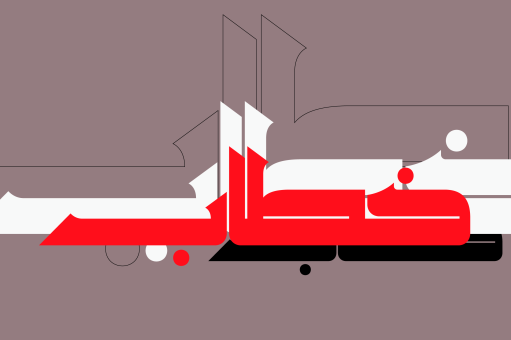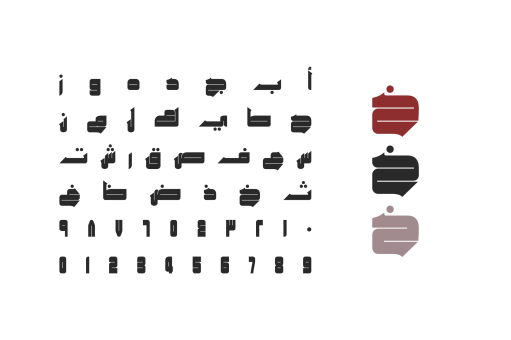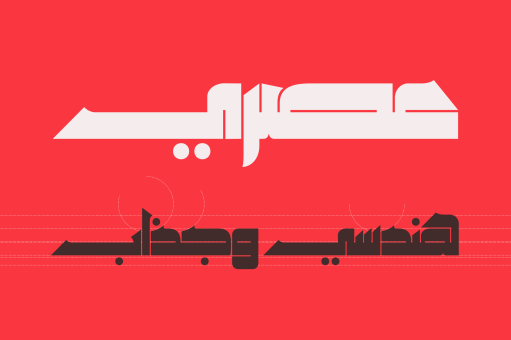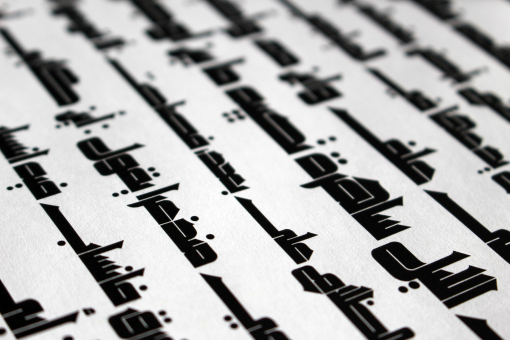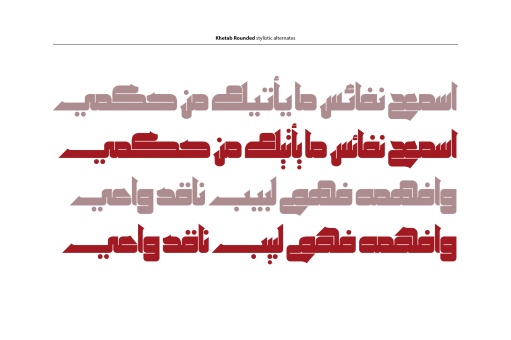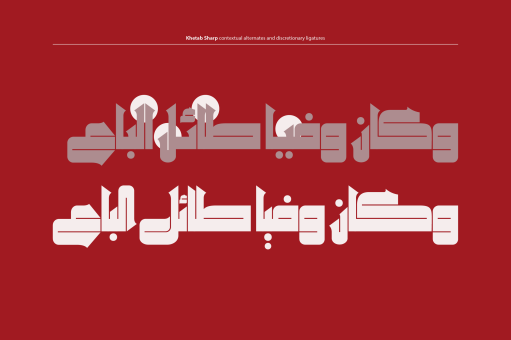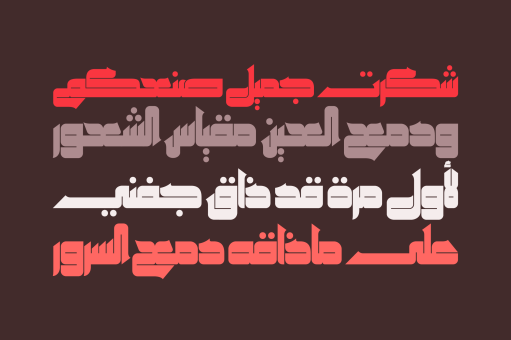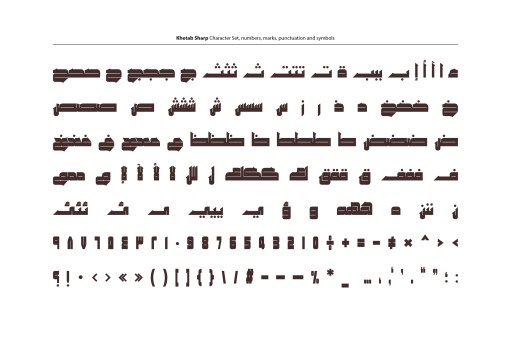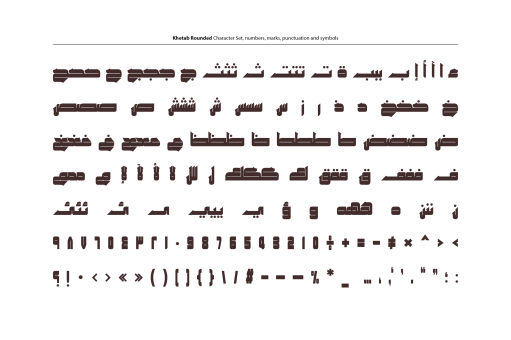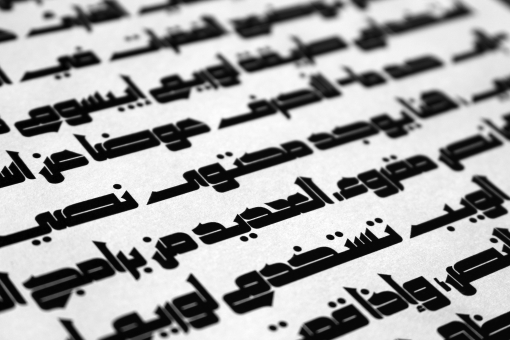
Khetab
Khetab is the Arabic word for Speech. This is an Arabic display font with a geometric structure that is inspired by the ancient Kufic writings. Khetab suits branding, web and publication titling. It combines both sharp and rounded corners version.